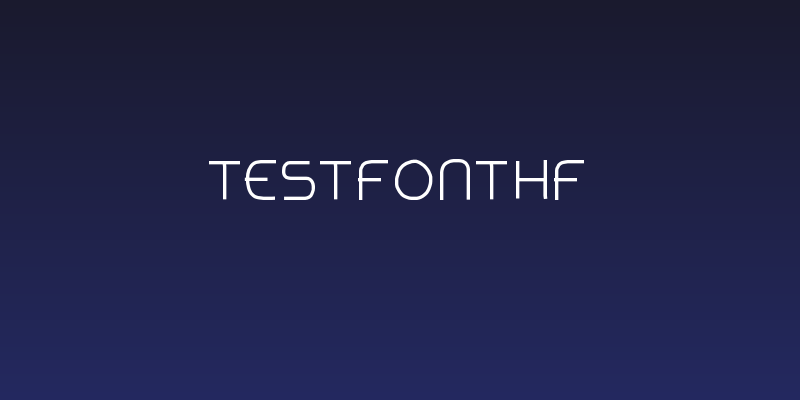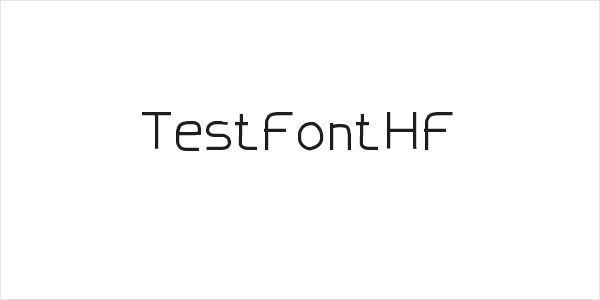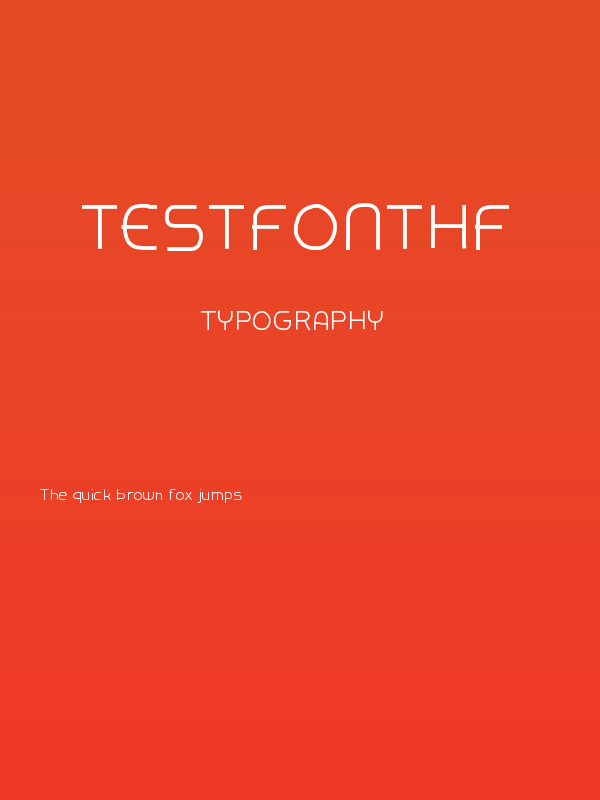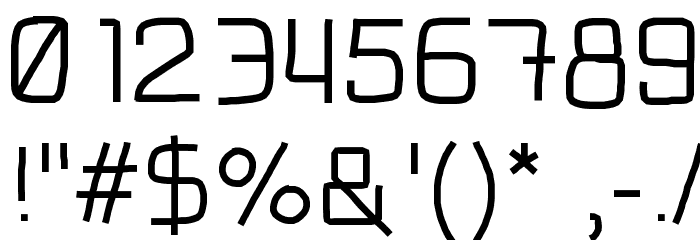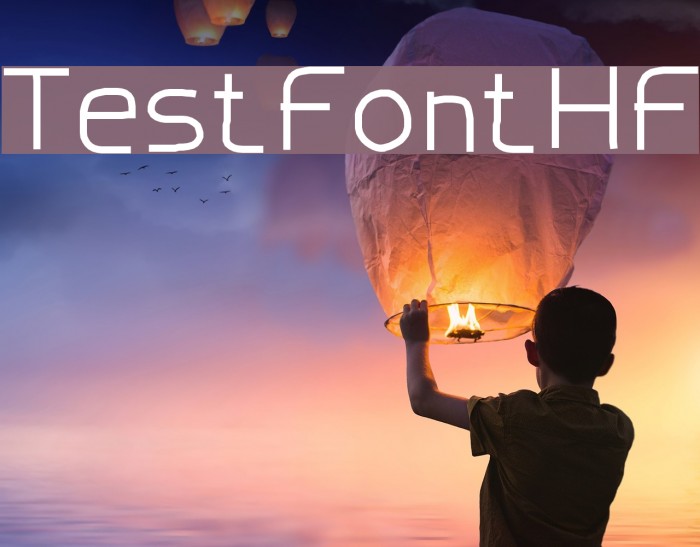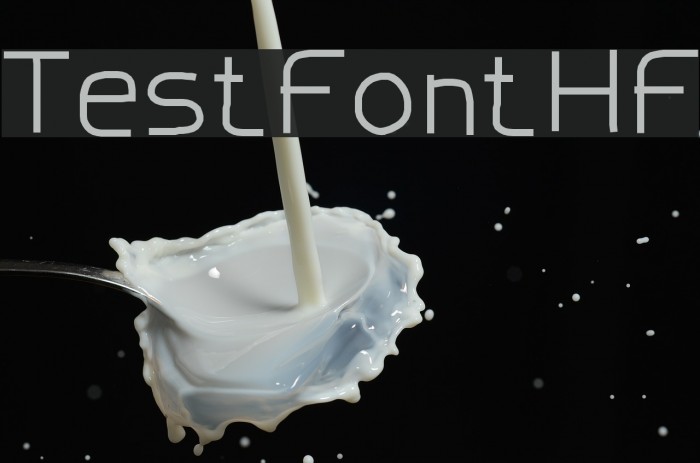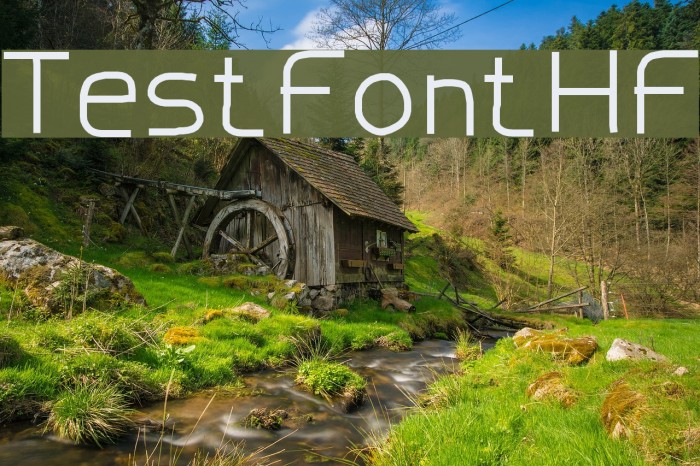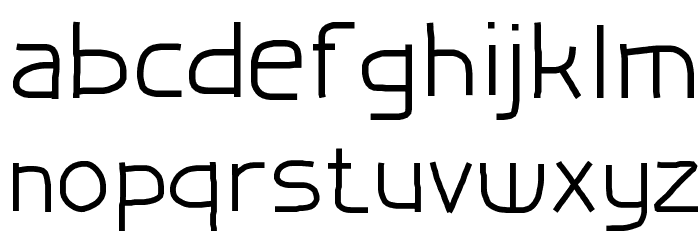
TestFontHF Font
TestFontHF Description
This font features a modern and clean design with rounded edges and a geometric structure. The uppercase letters are uniform in height, while the lowercase letters maintain a consistent baseline, enhancing readability. The numerals are distinct and align well with the overall style, making them suitable for both digital and print media. Special characters are well-integrated, maintaining the font's cohesive look. The font's simplicity and clarity make it versatile for various applications.
| Proposed Projects | Ideal for tech branding, user interfaces, and minimalist design projects. |